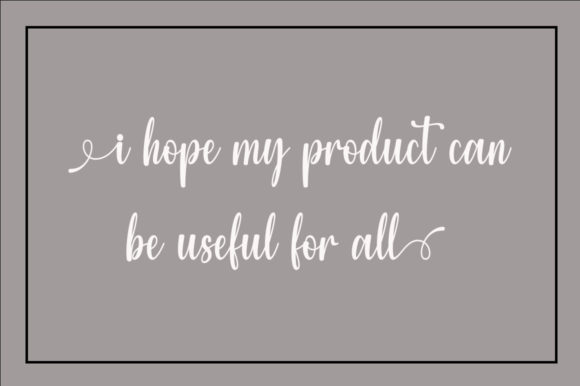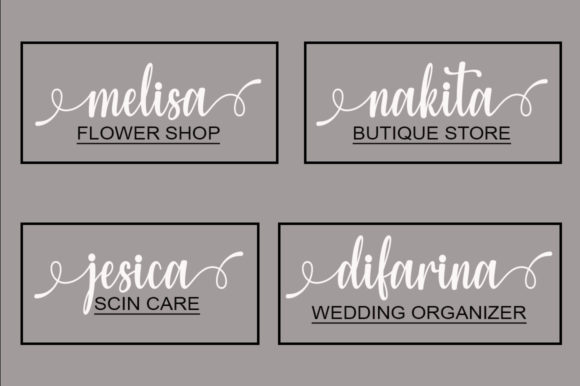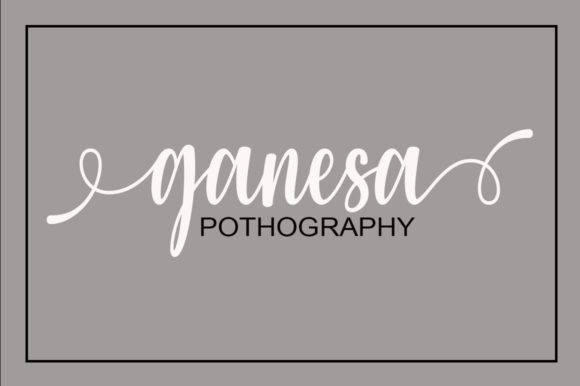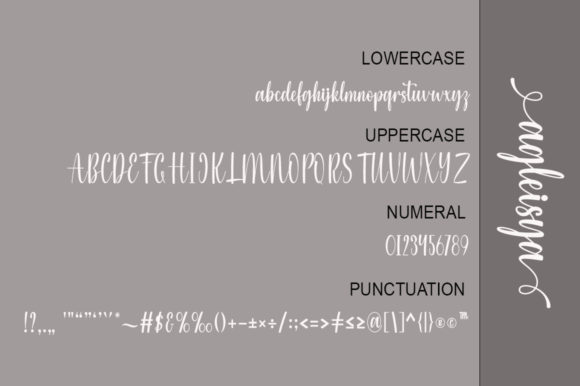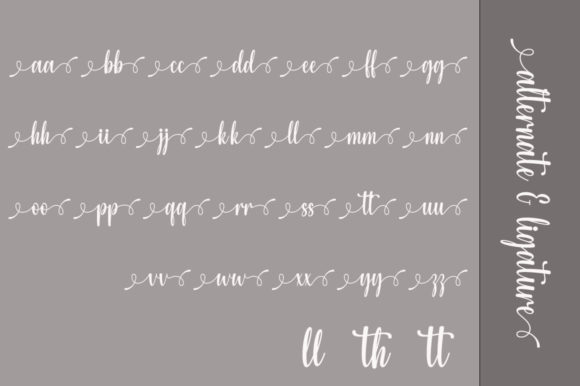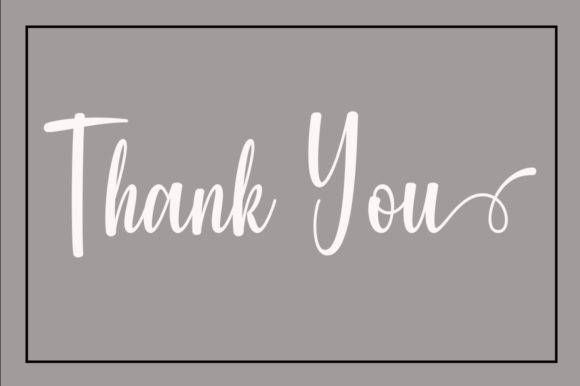
About Agleisya Font
Agleisya is a chic, refined script font that emanates sophistication and elegance. Its stylish alternates and ligatures make this font the perfect match for any project.